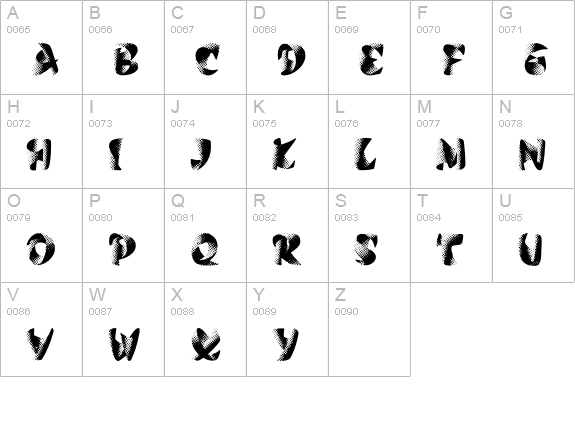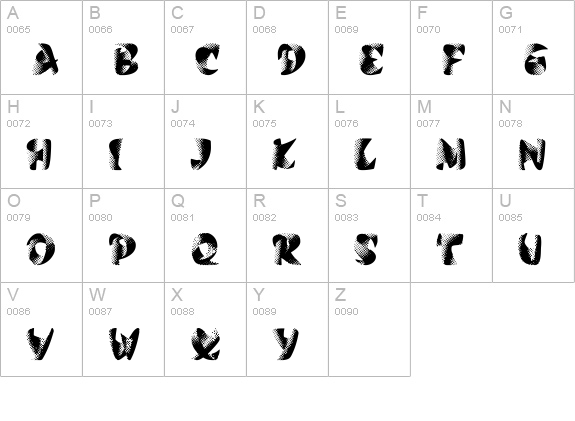
CalypsoDemo Font Details
CalypsoDemo is a charming and elegant font that exudes a sense of whimsical sophistication. Its flowing lines and stylish curves make it perfect for a wide range of design projects, from invitations to branding to social media graphics. With its unique blend of modern flair and classic appeal, CalypsoDemo adds a touch of luxury to any project. The best part? CalypsoDemo is completely free to download at FontsMarket.com. Whether you're a seasoned designer looking to add a fresh new font to your collection or a beginner searching for the perfect typeface to elevate your creations, CalypsoDemo is the ideal choice. Don't miss out on this fantastic opportunity to enhance your designs with this exquisite font - download CalypsoDemo for free today!